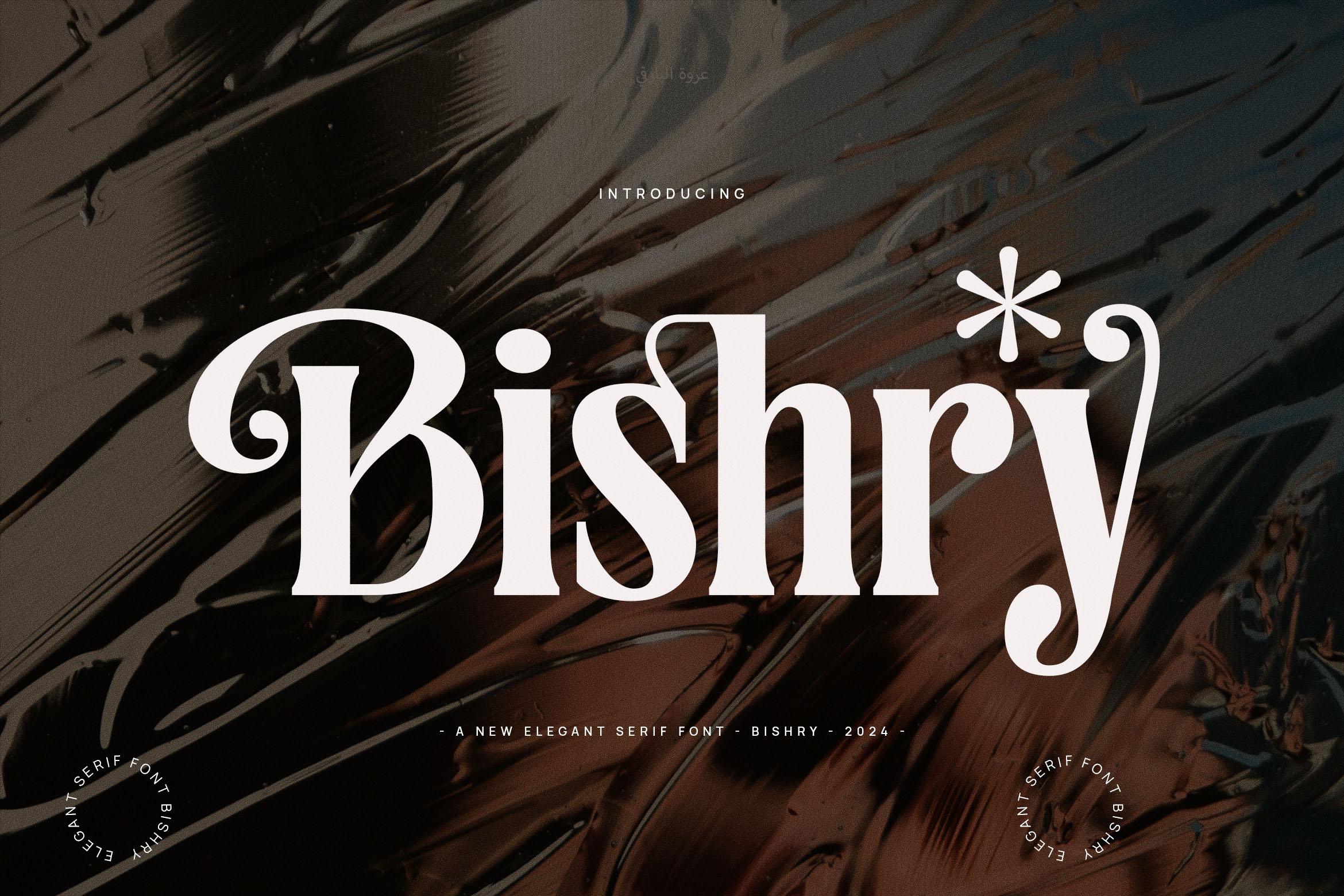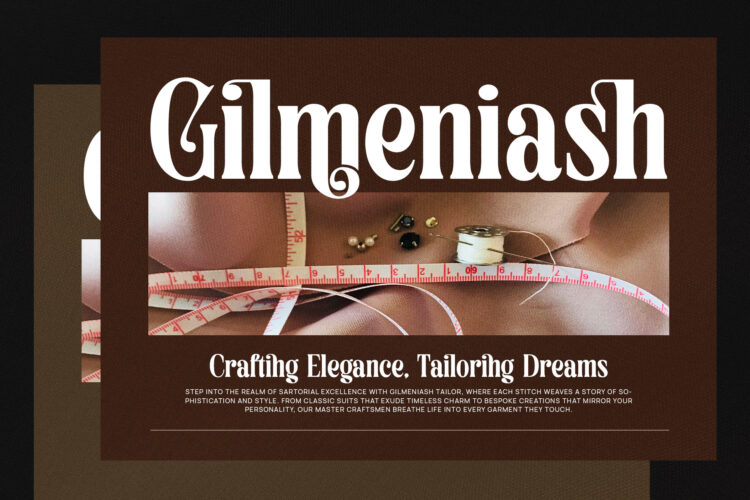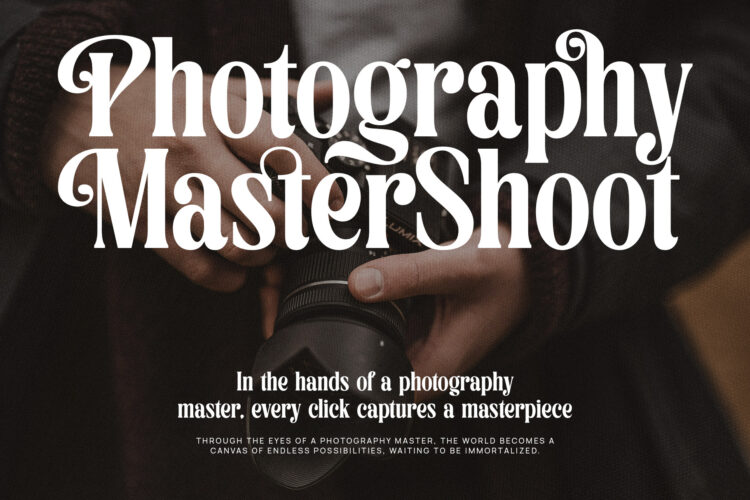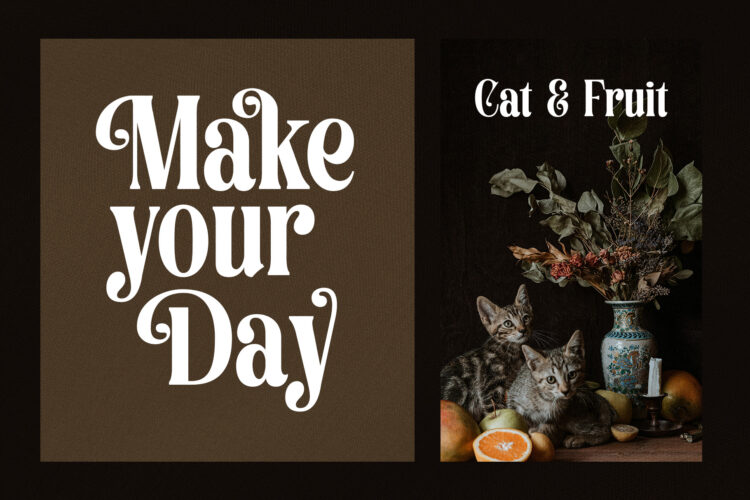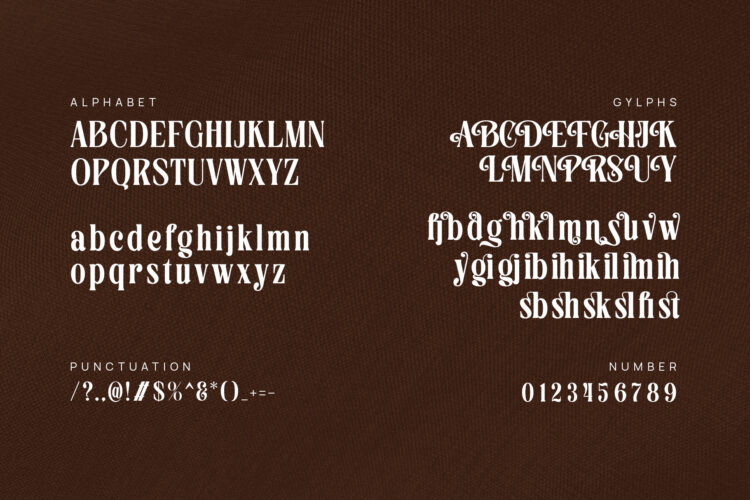
Introducing our new Bishry, modern serif font with elegant style this is perfect for branding, logos, invitation, magazines, product packaging and more.
Bishry – Elegant Serif Font